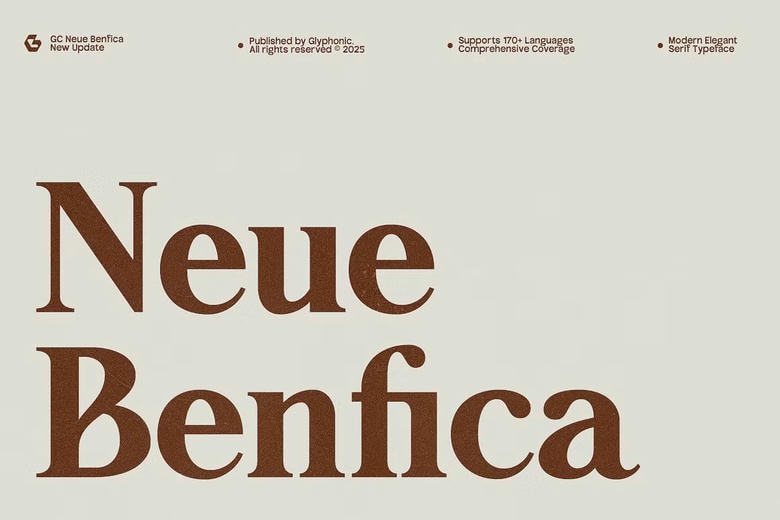
GC Neue Benfica Font
GC Neue Benfica is a classic serif font that blends elegance, versatility, and timeless style. Its balanced proportions and smooth shapes mix traditional features with a modern feel.
Each detail in GC Neue Benfica is designed to offer both authority and style, making the font stand out while staying flexible. Use it for bold headlines or polished editorial projects.
GC Neue Benfica Serif Font